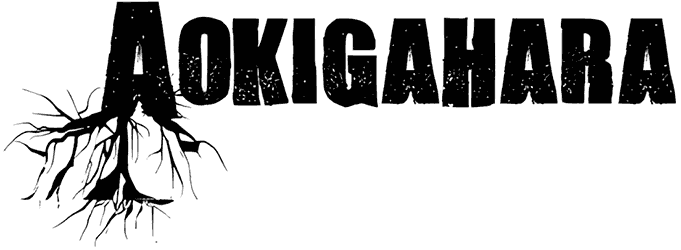
Aokigahara Font
When you want to look for an all-caps horror font, neglecting a fabulous masterpiece such as Aokigahara would be very hard.
Aside from not supporting lowercase letters and numbers, it offers two different versions of uppercase letters and broadens your horizons in the middle of designing stickers, street posters, graffiti, or video game brochures. Also, its grunge form can lead to a feeling of anxiety, fear, or smudgy.